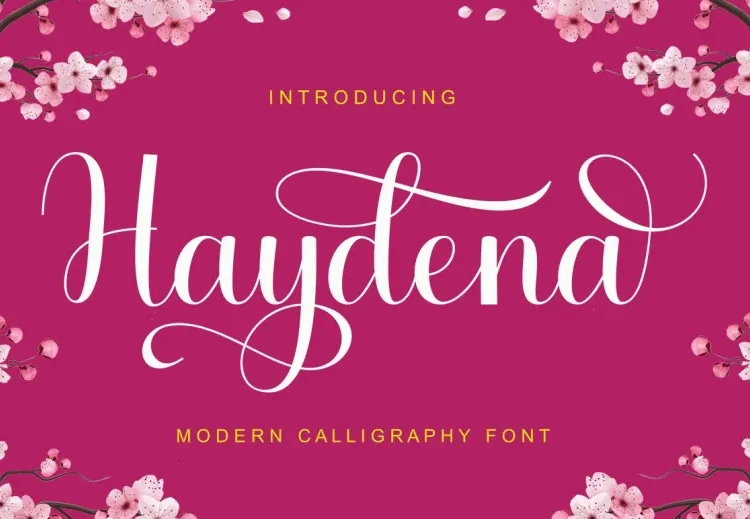
Haydena Font
Haydena is an eye-catching calligraphic manuscript font with a contemporary flair, perfect for adding a touch of elegance and style to your designs. Featuring stunning swashes and a distinctive calligraphic charm, Haydena is versatile and suitable for a wide range of applications.
Features of Haydena:
• Contemporary Calligraphy: Haydena combines traditional calligraphic elements with a modern aesthetic, making it ideal for contemporary design needs.
• Versatile Applications: This font is perfect for names, signatures, logos, wedding invitations, letterheads, labels, signage, newsletters, posters, badges, and more.